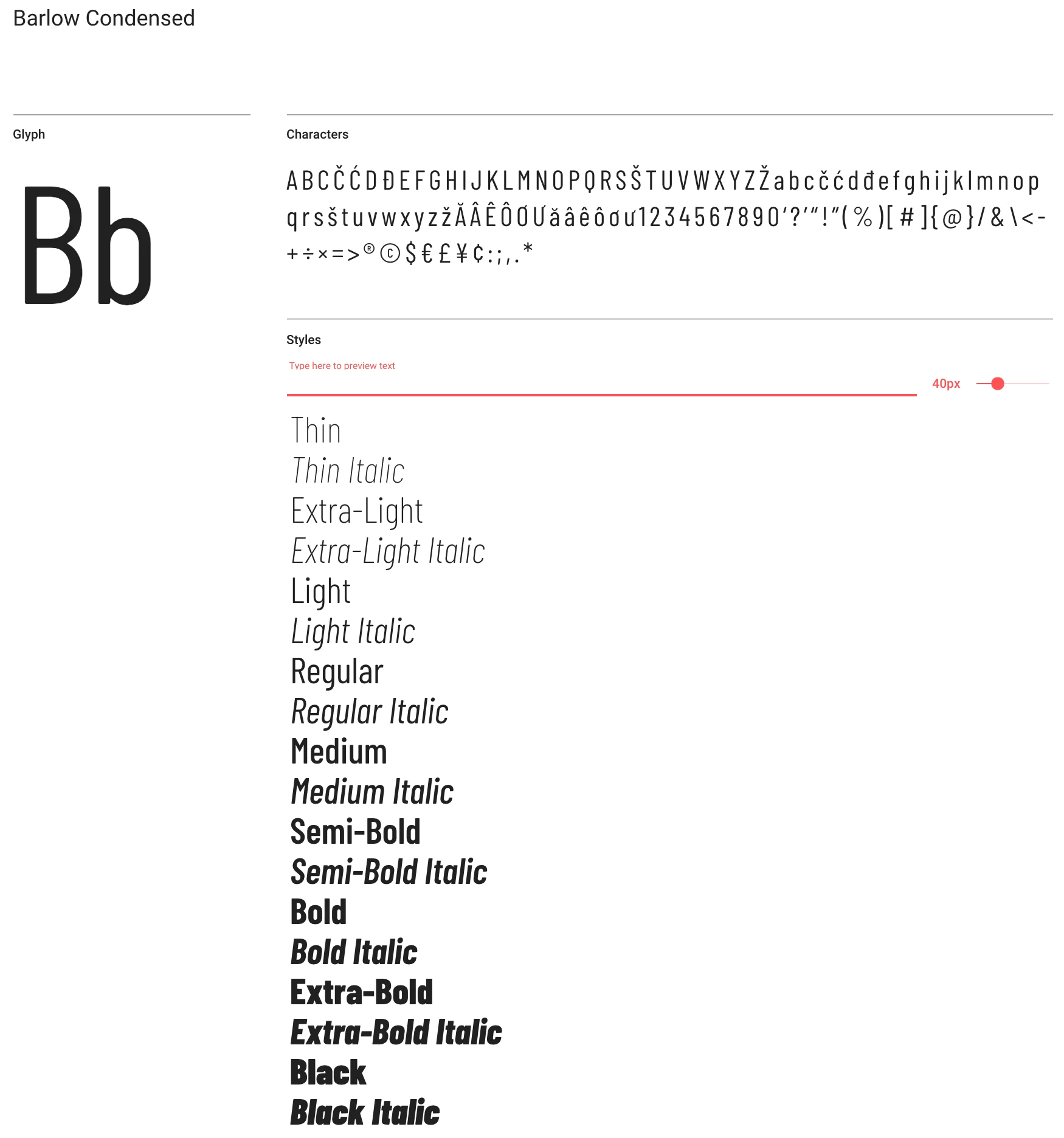
We just switched corporate fonts to Barlow, and I cannot seem to get Barlow Condensed (otf) to be both bold and italic. Right now, it's an either/or situation. Is there any support yet for variable fonts?  With InDesign, I can adjust the skew of the text to get it to work, but the character designer in FM doesnt' have that option. The font works just fine in Office applications.
FrameMaker does not support variable fonts.
Where are you getting your Barlow Condensed? Google fonts has a version that should work. https://fonts.google.com/specimen/Barlow+Condensed
Does Barlow Condensed even include a "Bold" instance? It might only offer Black and ExtraBold, and both of those appear to be available in Italic forms.
Separately, with some fonts (historically Type 1), when the default printer is Postscript or Ps-like (PDF), FM can sometimes offer a "Bolded" or "Oblique" transformation might suffice. I don't know is any variants of Barlow could be so used.
It does, and I can get either bold or oblique, just not both at once. I can set it to oblique, for example, and the second I select "bold" in the paragraph designer, the angle flips back to regular, and vice versa.
I suspect what you need is to be setting is a font name of Barlow Condensed BlackItalic or Barlow Condensed BoldItalic, and not trying to use the FM font attributes on a base font name. Names may vary by foundry.
Sounds like corporate marcom bungled the typeface innovation. They tend to excel at that. At least Barlow is legible, and you can actually distinguish "1" from "l".